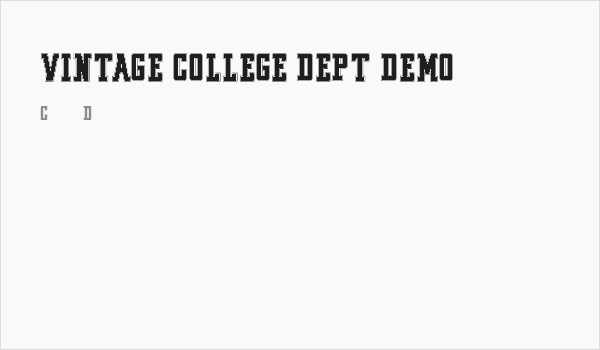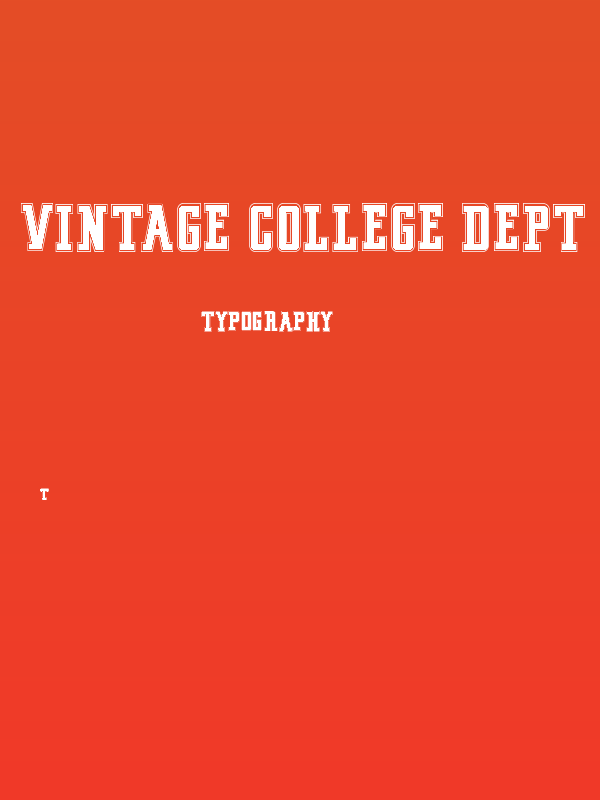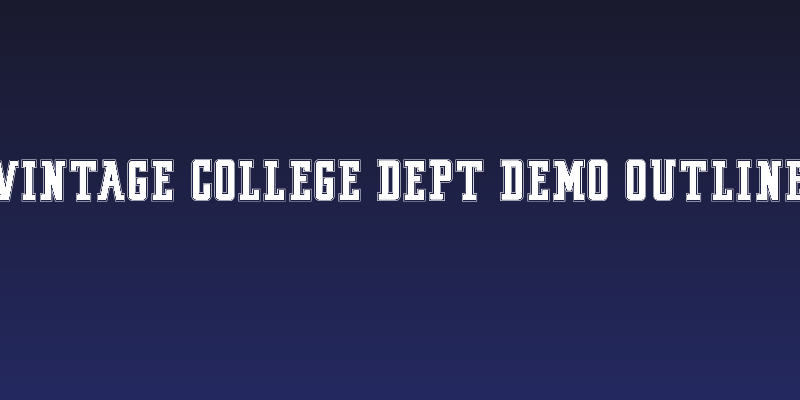
VINTAGE COLLEGE DEPT_DEMO_outline Font
VINTAGE COLLEGE DEPT_DEMO_outline Description
This font features a bold, collegiate style with a strong, impactful presence. The characters are outlined, giving them a distinctive, layered look that enhances their visibility and adds a vintage flair. The uppercase letters are uniformly designed with sharp, angular edges and a consistent stroke width, contributing to a sense of strength and tradition. This style is reminiscent of classic sports team jerseys and university branding, making it ideal for projects that require a sense of nostalgia and authority.
| Proposed Projects | Ideal for sports team branding, university merchandise, retro-themed posters, and event promotions. |